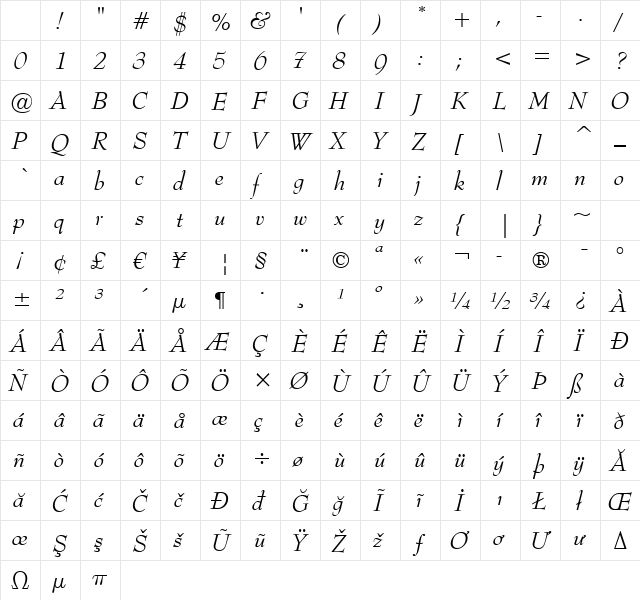
Complete UVN Bai Hoc Italic glyph index. Displaying only characters natively supported by UVN Bai Hoc Italic font.
UVN Bai Hoc is a composed and adaptable typeface that performs quietly and consistently across a wide range of design contexts. The slanted form adds forward momentum and visual energy.